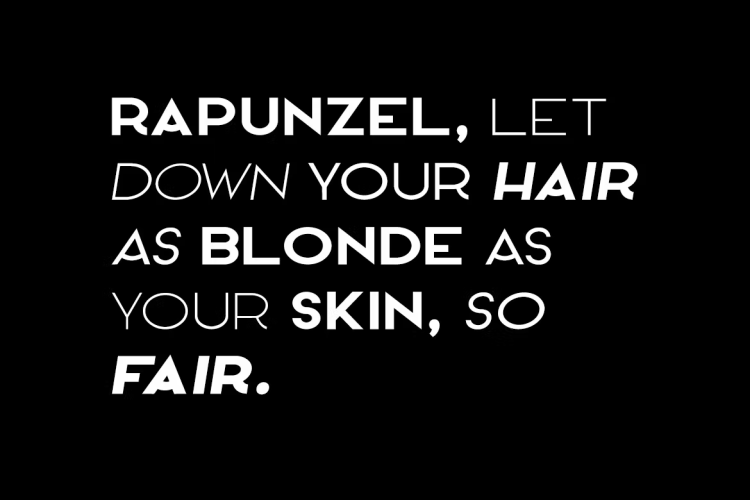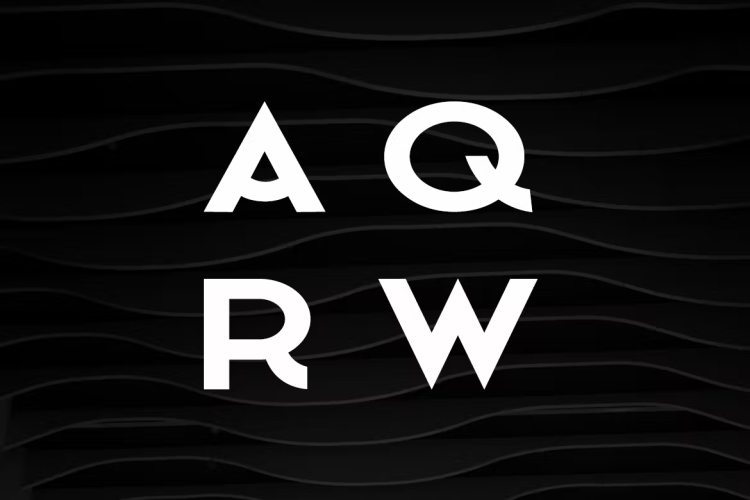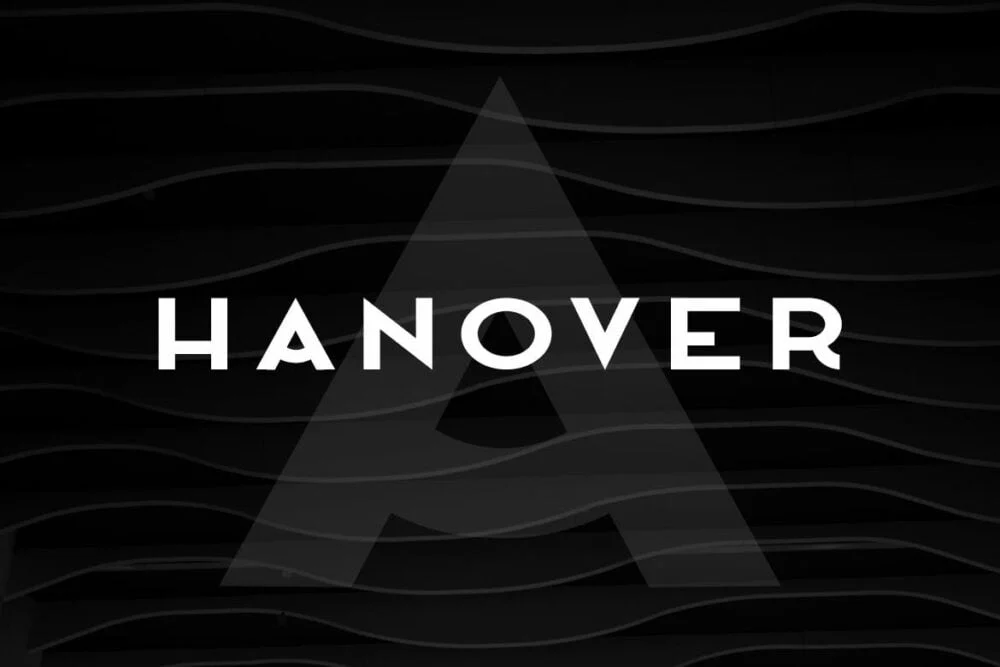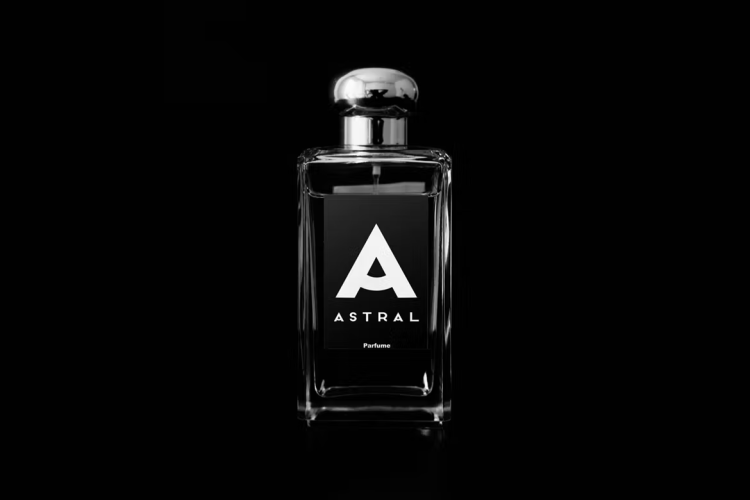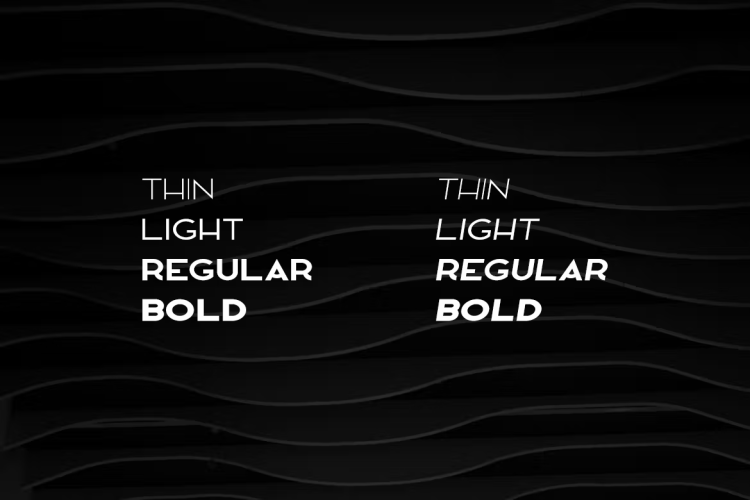
Hanover Font
Hanover Font minimalist typeface specifically made for luxury, fashion and stylish statement with its unique flair that makes it perfect for beautiful headlines, branding, logotypes & display usage. This all-caps typeface is also perfect for creating outstanding logos, promotional content and marketing graphics that can really grab attention from your visitors.
Add some letter-spacing to create unique headlines – an essential use case of modern minimalist design trends. Please see the examples shown above to get an idea about the capability of this typeface.
HANOVER comes with 4 weights (Thin, Light, Regular & Bold) along with italic versions of all 4 weights. The pack contains OTF, TTF and Web Fonts (all EOT, SVG, TTF, WOFF, WOFF2 everything is included) as licensing options.
Where Hanover Font works best
Event & seasonal design
Hanover Font suits themed posters, holiday campaigns, festival identities and party invitations.
Game & entertainment titles
Decorative letterforms are a natural fit for game logos, movie-style titles and merch.
Packaging accents
Use Hanover Font sparingly for product names or flavour labels that need personality.
What is Hanover Font good for?